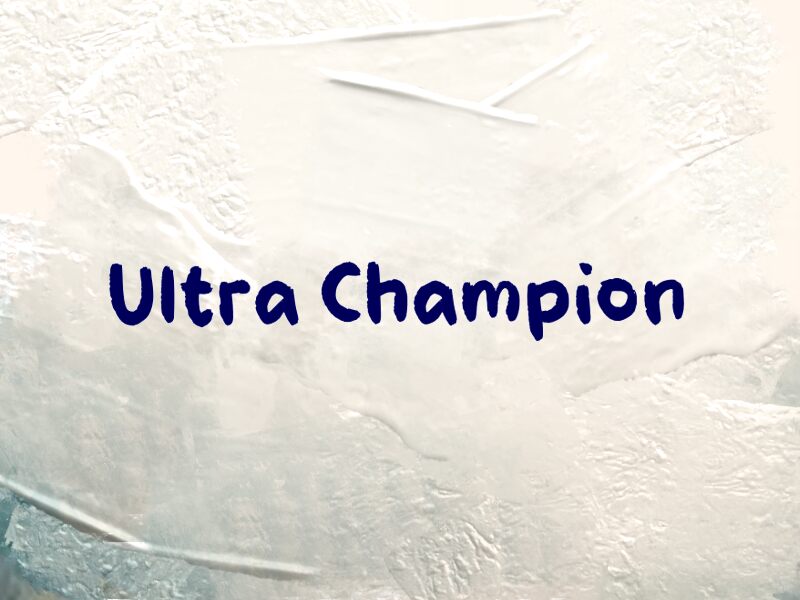
Ultra Champion
Ultra Champion font by wep is a free brush font that captures the energy of quick, confident marker strokes without losing clarity. Its thick, rounded forms and slightly rough edges feel hand-painted and energetic, like a bold sign made in one go. Letters sit close together with an easy rhythm, giving headlines a friendly punch rather than a harsh shout.
Using Ultra Champion, your sports posters, kids’ event flyers, snack packaging, YouTube thumbnails, merch graphics, and social media banners instantly feel louder and more fun. This free font shines when set large and bold; pair it with a clean geometric sans-serif in smaller text to keep layouts readable while letting Ultra Champion carry the personality.